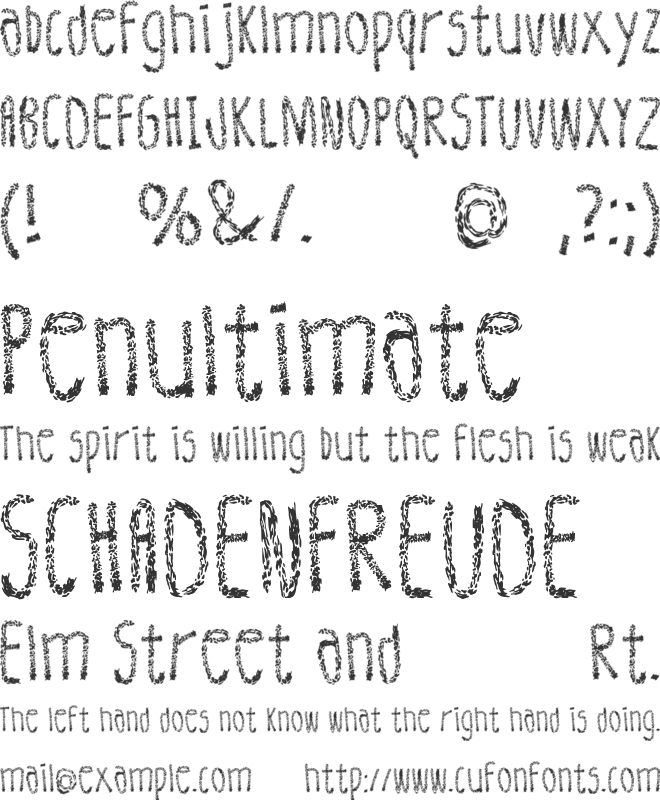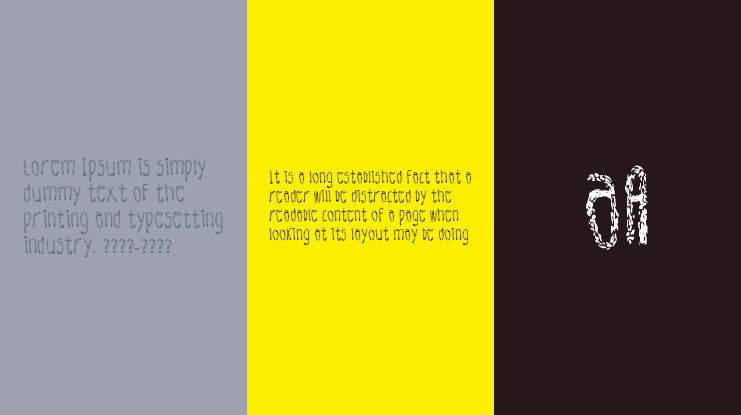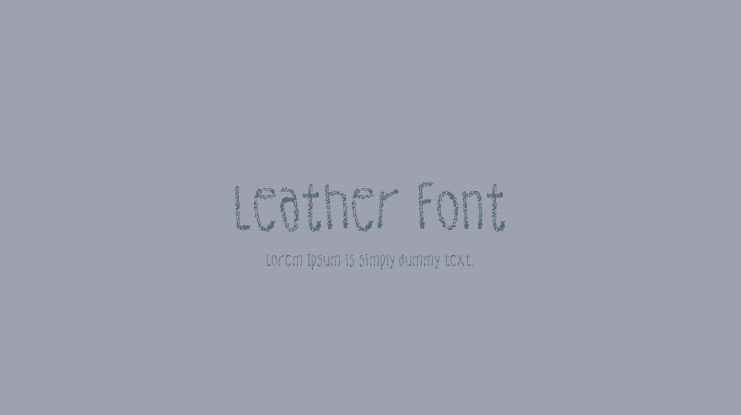
Leather Font
Leather Font - mimics the patch on tiger skin
It is perfect for logo creation, branding, websites, business cards, invitations and more!
Each letter has been handcrafted into a beautiful piece.